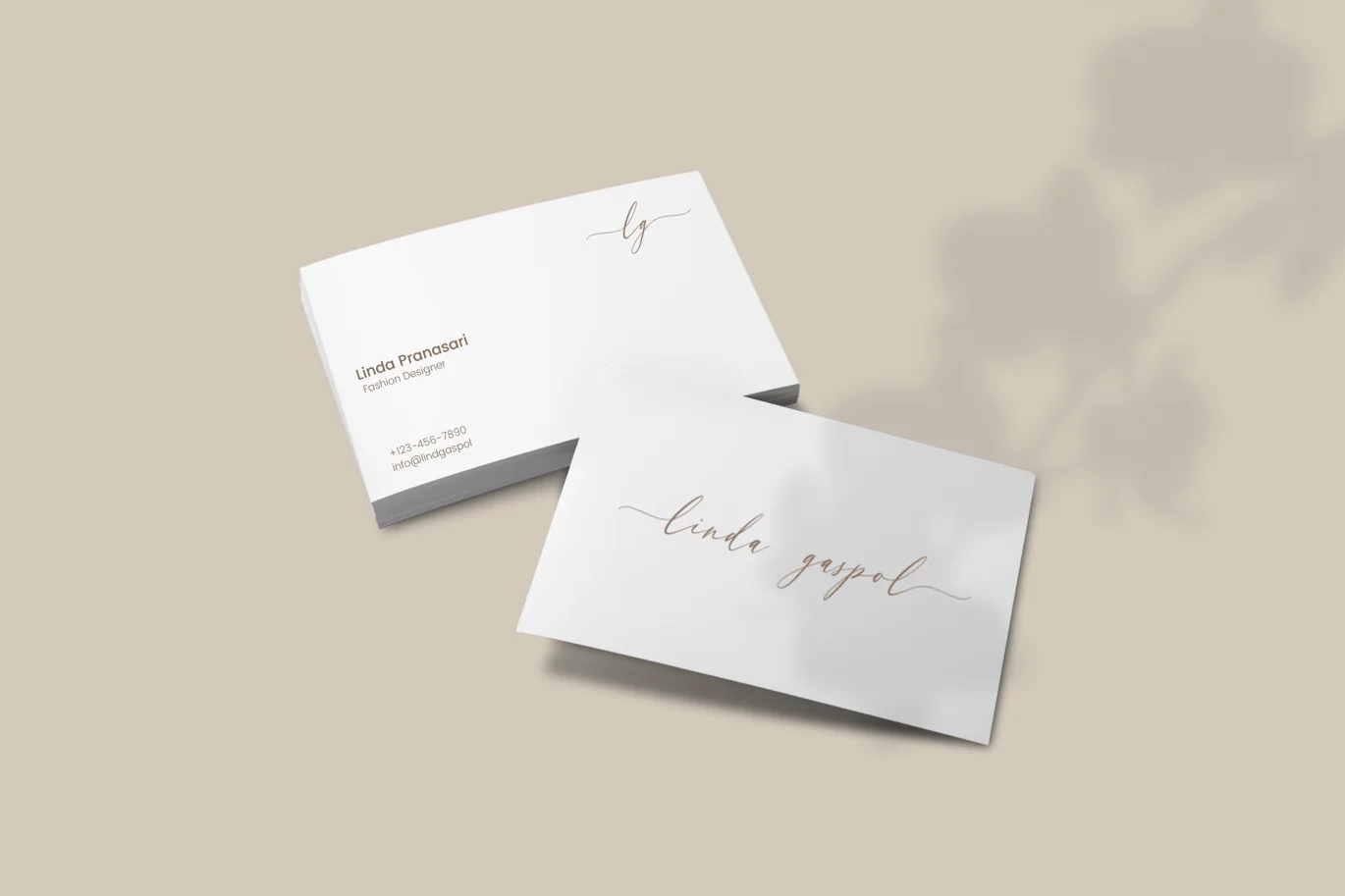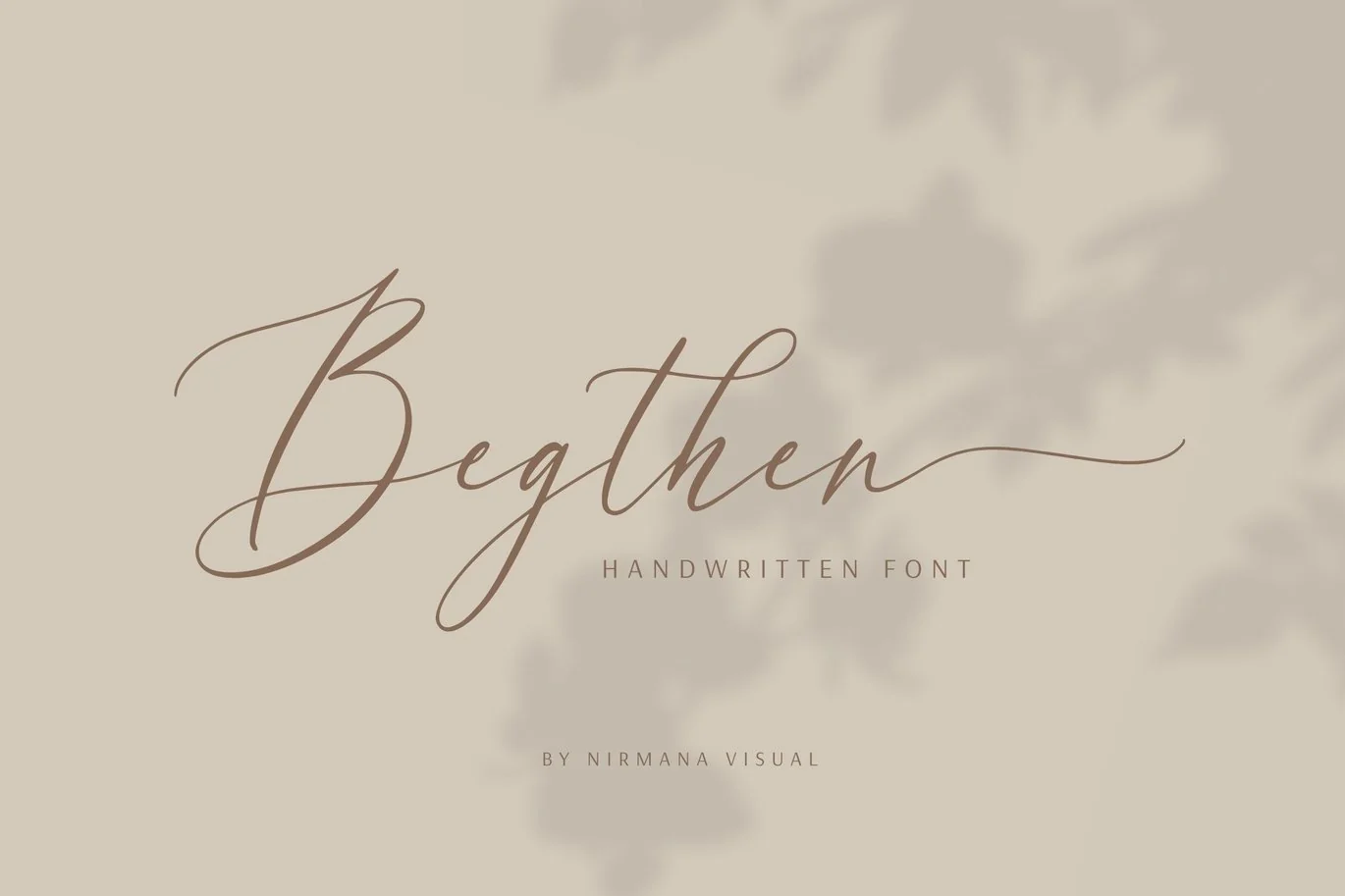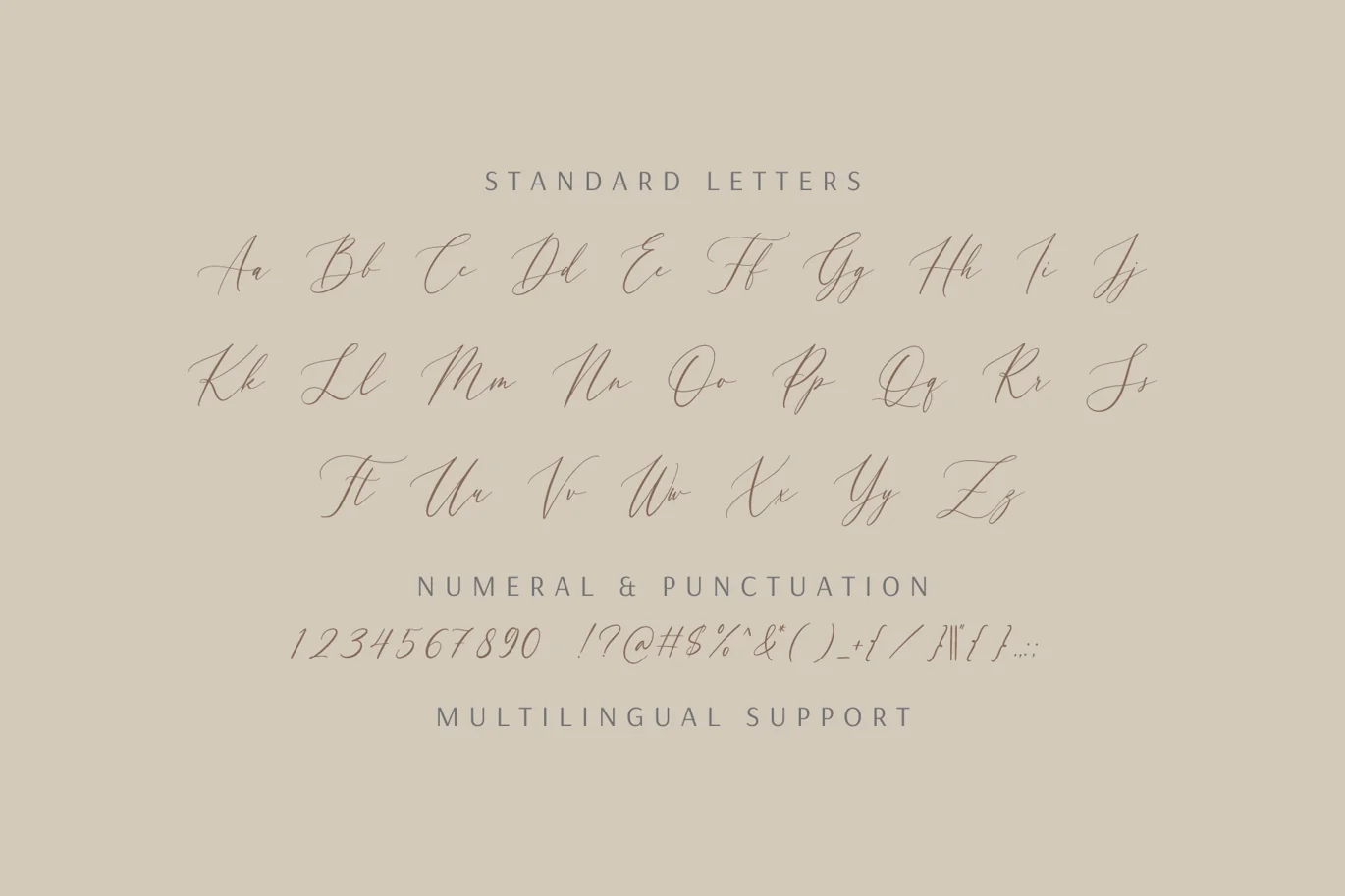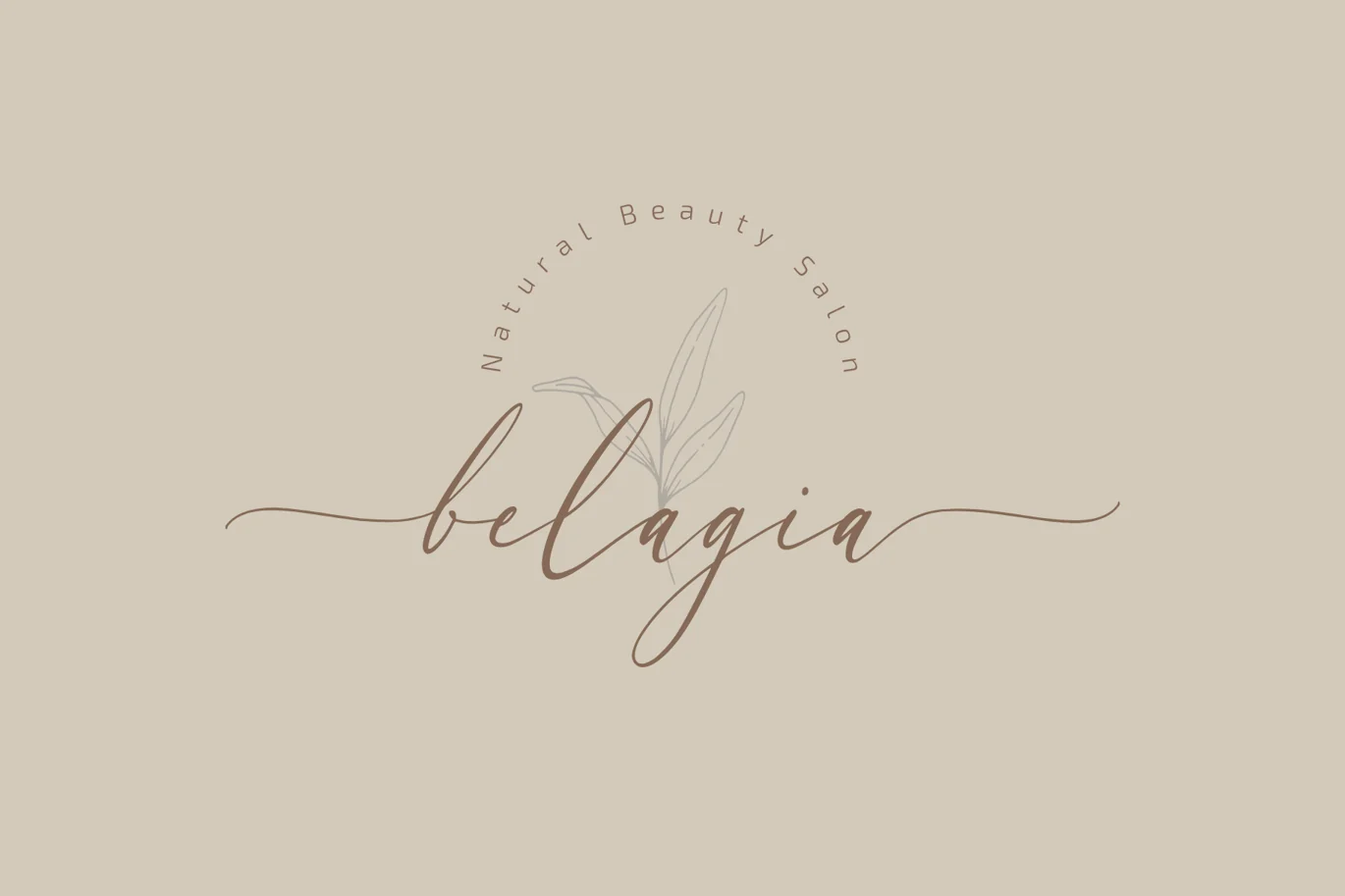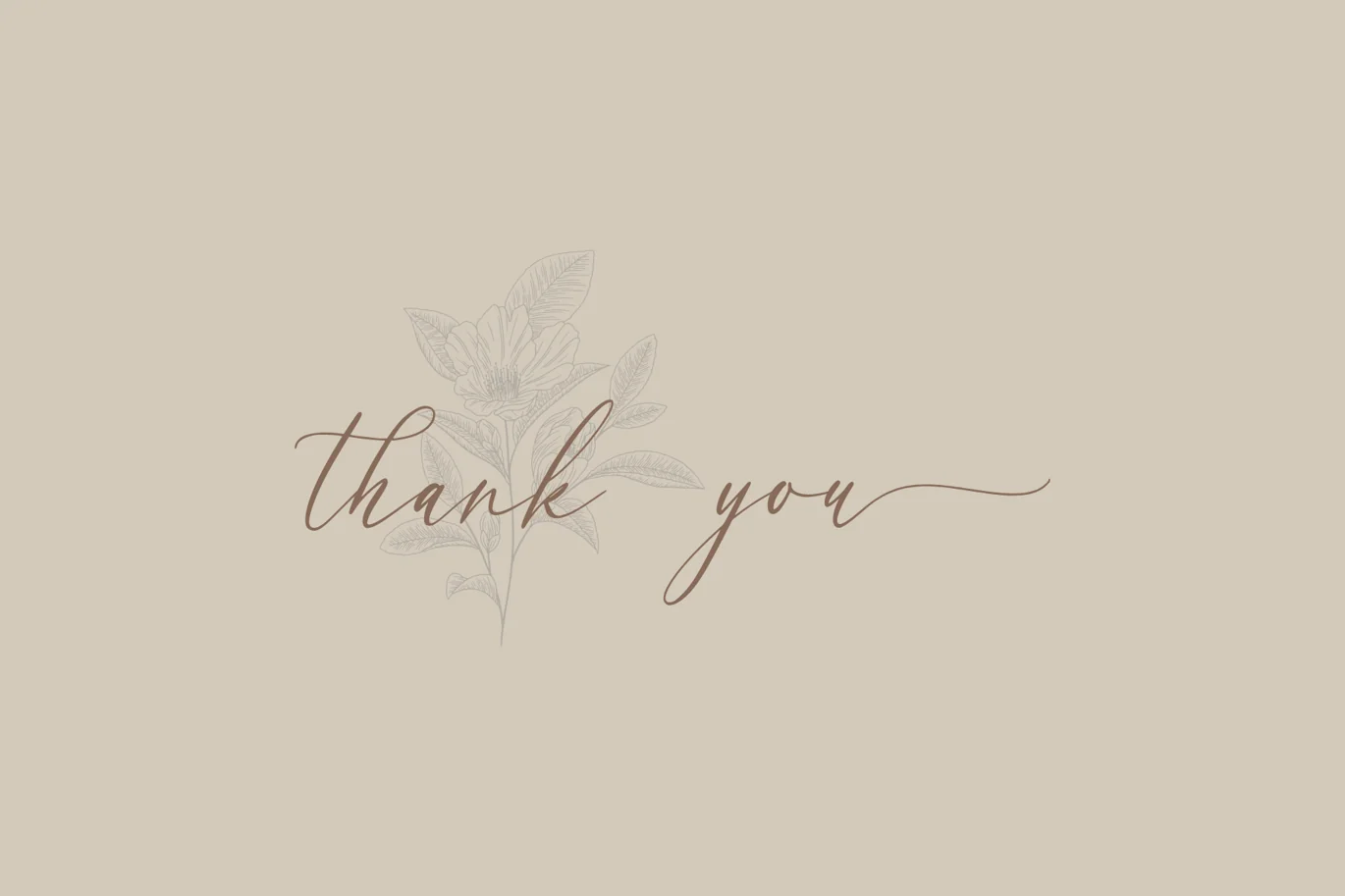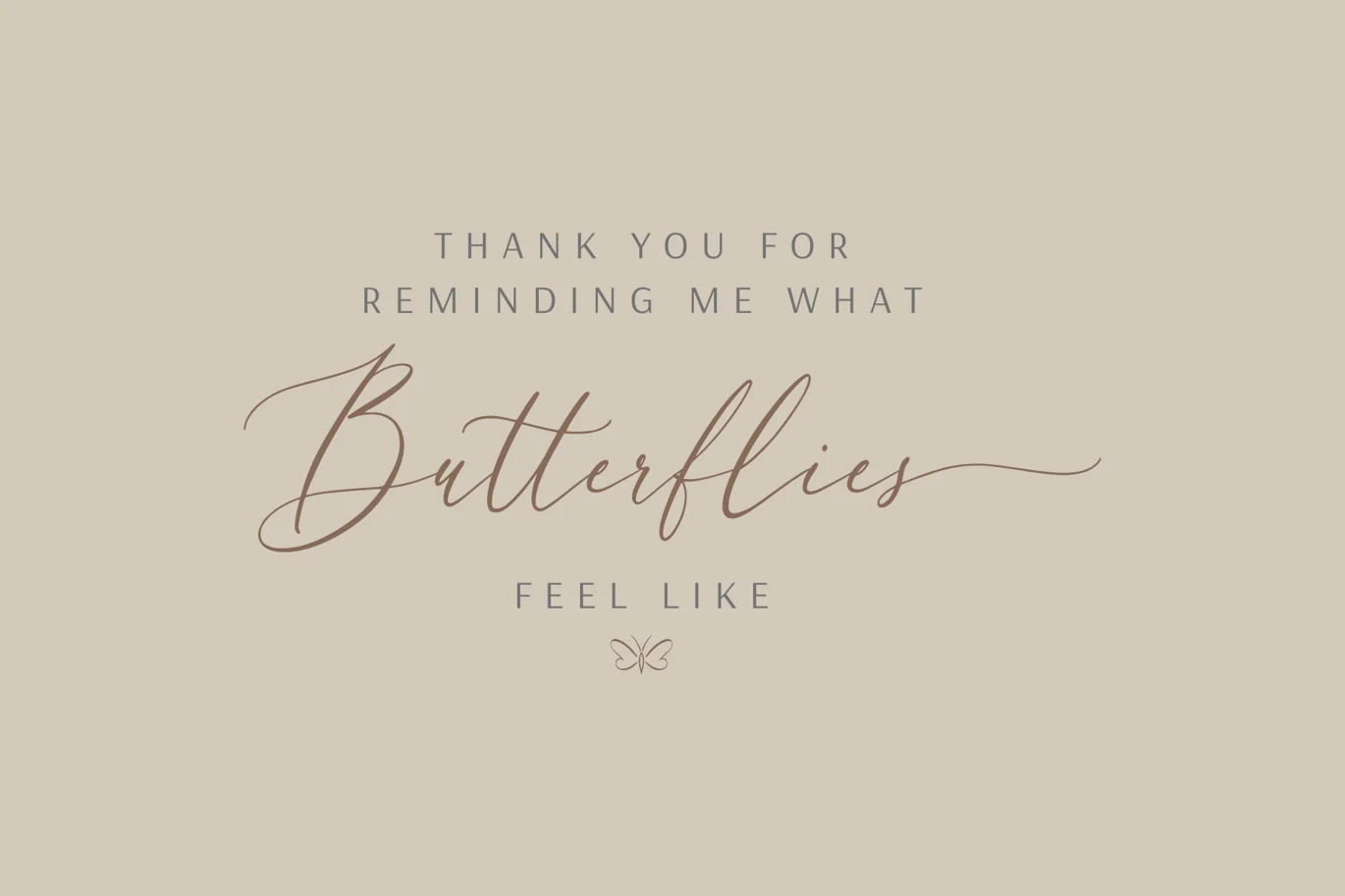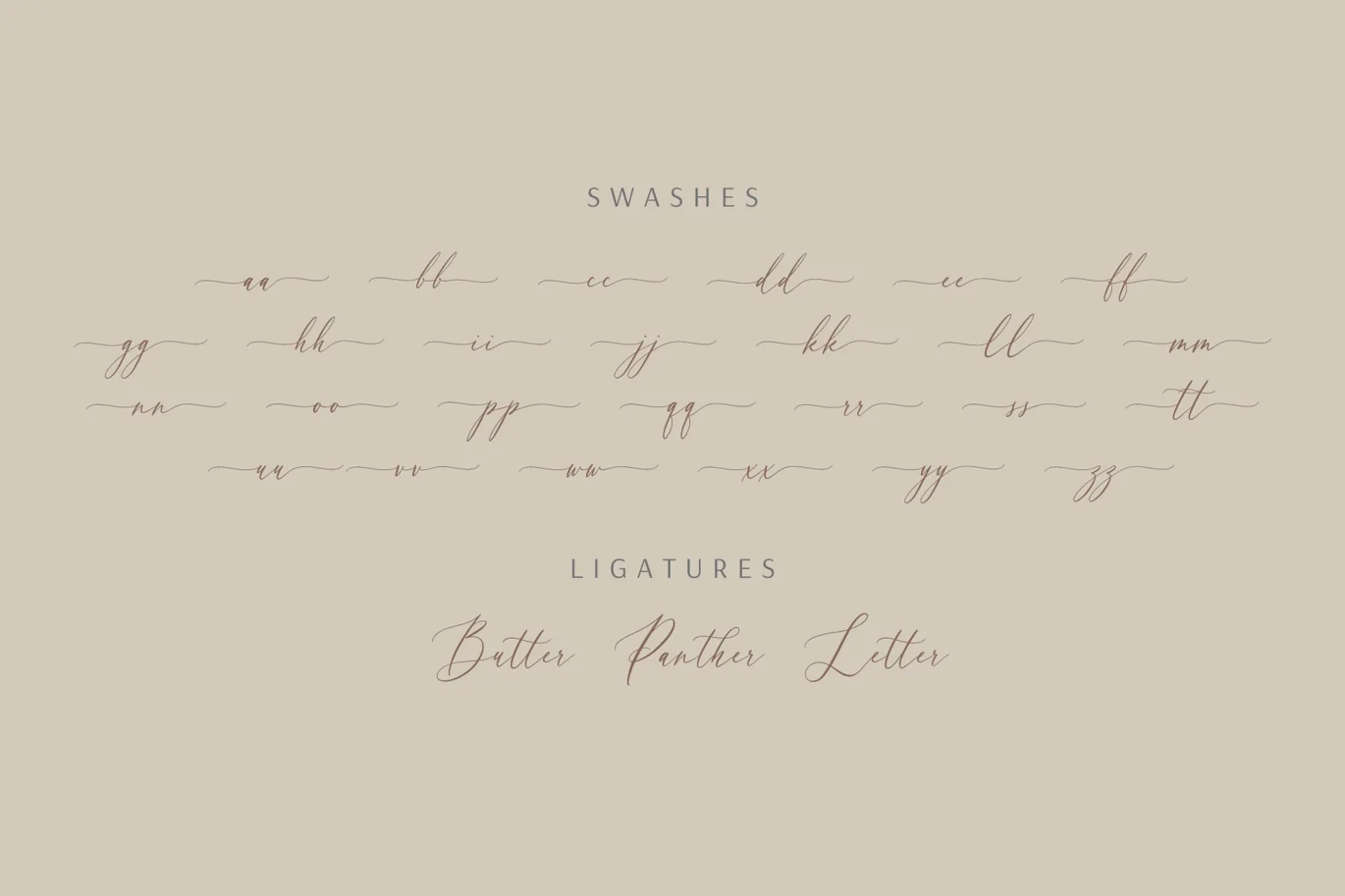
Begthen – Modern Calligraphy Wedding Font
Begthen is a Beautiful script font carefully created with a touch of romantic.
This is a beautiful combination of timeless elegance and authentic calligraphy,
It has lowercase beginning and ending swashes.
-lowercase beginning and ending swashes.
-multilanguange support:
áâàäåãæçéêèëíîìïıñóôòöõøœšúûùüýÿž
ÁÂÀÄÅÃÆÇÉÊÈËÍÎÌÏÑÓÔÒÖÕØŒŠÚÛÙÜÝŸ